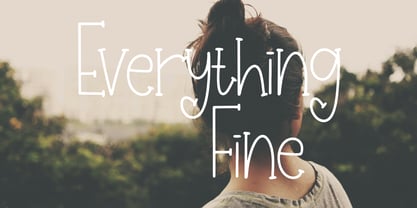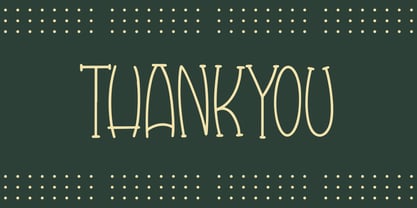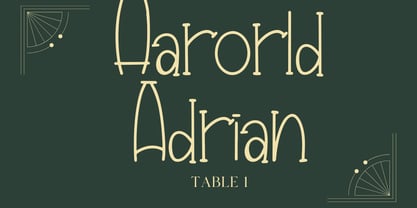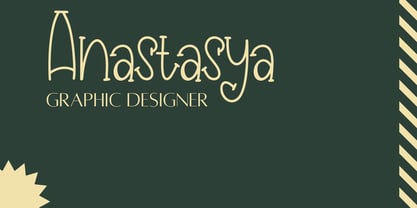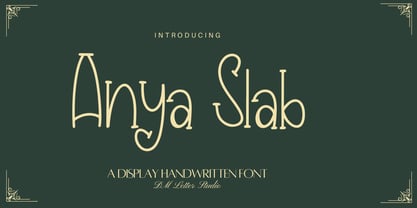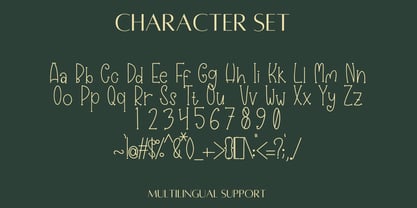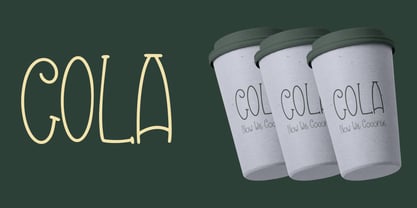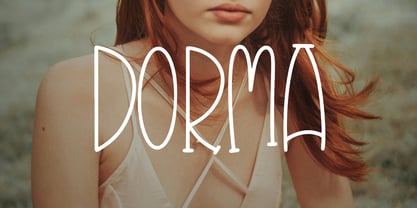
Anya Slab
por DM Studio
La familia tipográfica Anya Slab fue diseñada por Dimas Prasetyo y publicada por DM Studio. Anya Slab contiene 1 estilos. Más información sobre esta familia
Meet Anya Slab, the Slab Serif Font Anya Slab is a modern slab serif font with a confident, friendly voice. It blends sturdy serifs with clean curves, so your text feels premium but still easy to read. Because the letterforms stay balanced and open, Anya Slab works beautifully at small sizes for body text and at larger sizes for headlines. Use it for branding, packaging, editorial layouts, product labels, café menus, websites, and logo wordmarks. As a result, your designs look polished and trustworthy without feeling stiff. Why Anya Slab sells First, it installs fast and works smoothly in Canva, Photoshop, and Illustrator. Next, the solid structure prints crisp for labels, packaging, books, and stationery. Then layouts come together quickly because spacing feels steady and predictable. Moreover, Anya Slab pairs perfectly with a clean sans or a handwritten accent font, so you can build complete brand systems fast. Therefore, you can create consistent collections and professional templates with confidence. Fast layouts with the Anya Slab font Start with Anya Slab for the headline or brand name. After that, add a clean sans for supporting text like ingredients, dates, or pricing. Because slab serifs love contrast, keep your hierarchy clear by using fewer weights and stronger size changes. In addition, try simple shapes like rules, badges, and frames to match the structured look. Finally, save palette pairs like charcoal & cream, navy & ivory, cocoa & beige, or forest & pearl to repeat across your product line. Creative uses and quick wins Logo wordmarks, brand kits, and packaging labels Editorial quotes, magazine-style posts, and Pinterest pins Menus, signage, price lists, and product catalogs Wedding details, invitations, and minimalist stationery What you get Uppercase, lowercase, numbers, punctuation Strong slab serif structure for clear readability Curves tuned for crisp print and high-res exports Design tips for Anya Slab Use short lines for headlines and give the type plenty of breathing room. Also, increase tracking slightly for all-caps titles to keep it clean. For print, export at 300 DPI, and for web export at 2× size so edges stay smooth. Finally, pair it with a simple script for contrast when you want a softer, more boutique feel.
Diseñadores: Dimas Prasetyo
Fundición: DM Studio